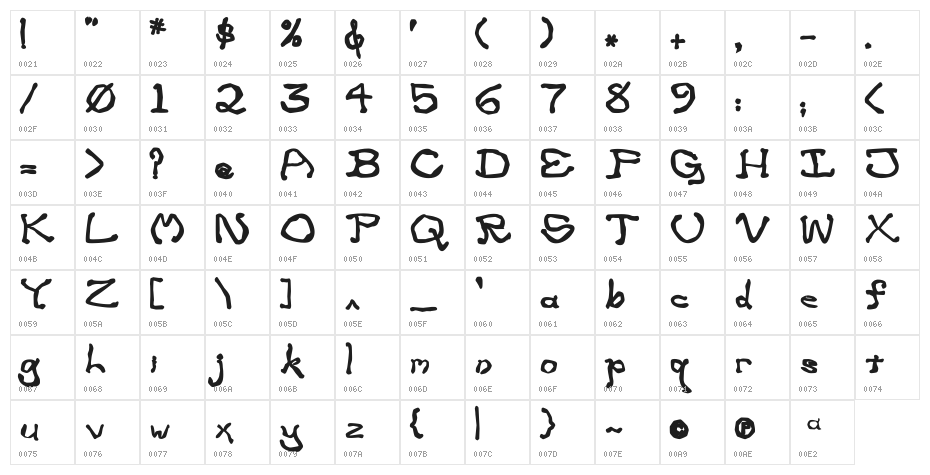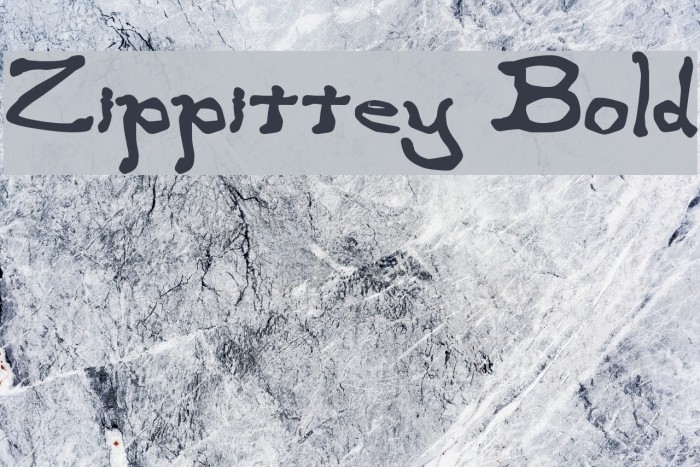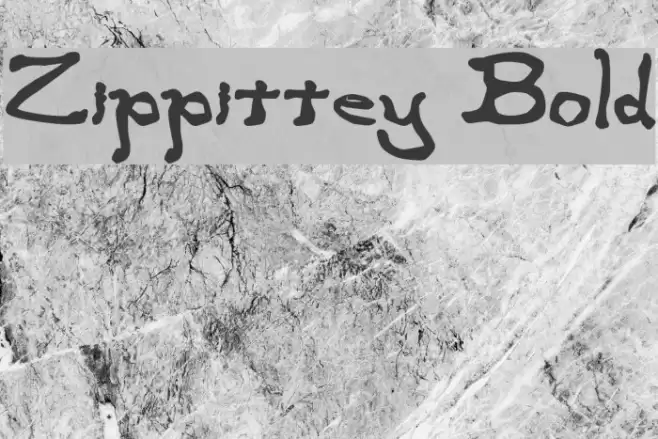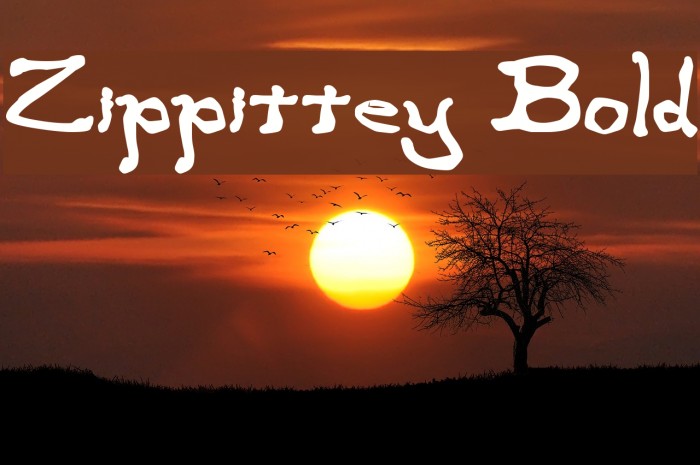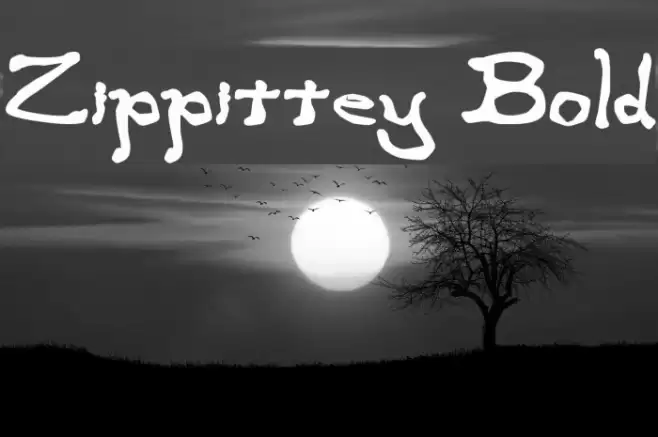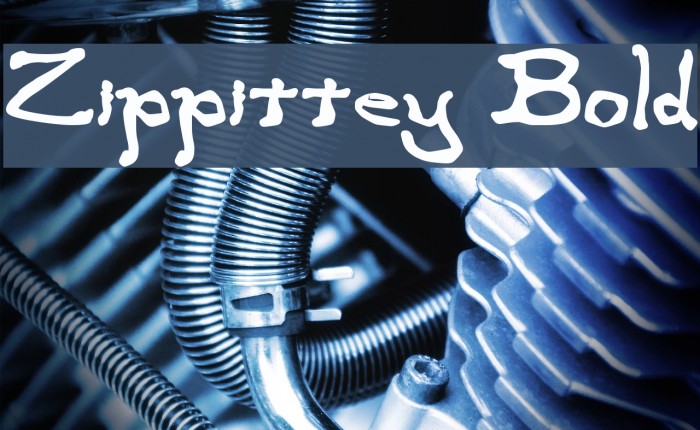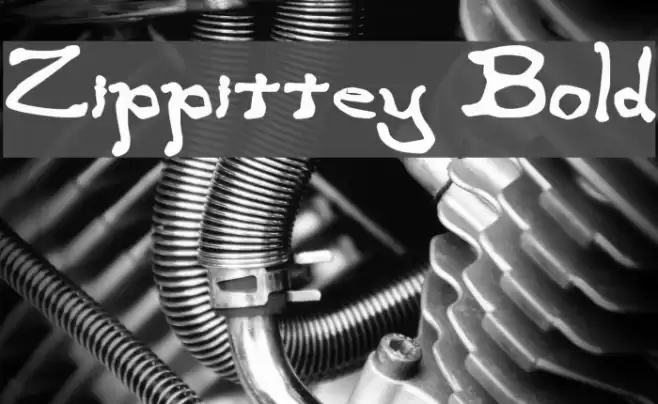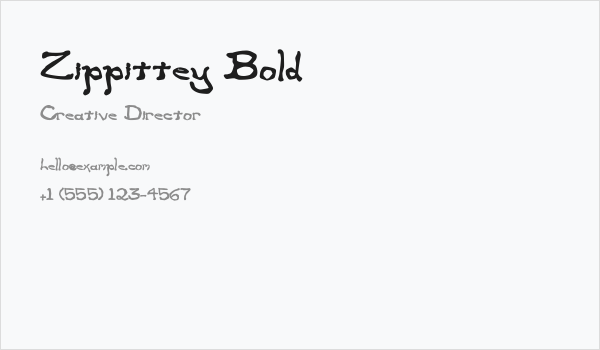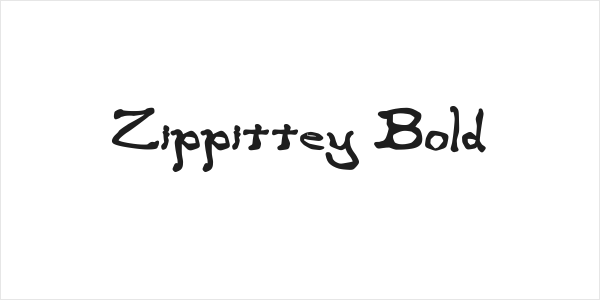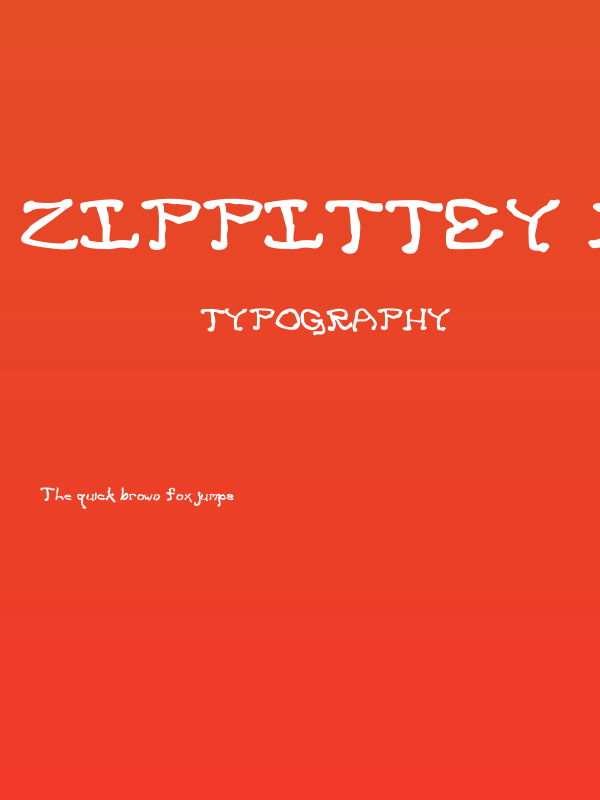
Zippittey Bold Font
Zippittey Bold Description
This font features a playful and whimsical style, characterized by its irregular and hand-drawn appearance. The letters have a bold and chunky form, with uneven strokes that give it a lively and energetic feel. The uppercase and lowercase letters maintain a consistent style, with a slightly exaggerated and cartoonish look. Numbers and special characters follow the same playful design, making the font suitable for creative and informal projects. The overall impression is one of fun and spontaneity, making it ideal for designs that aim to capture attention with a unique and engaging aesthetic.
| Proposed Projects | Ideal for children's books, comic strips, playful branding, and creative posters. |